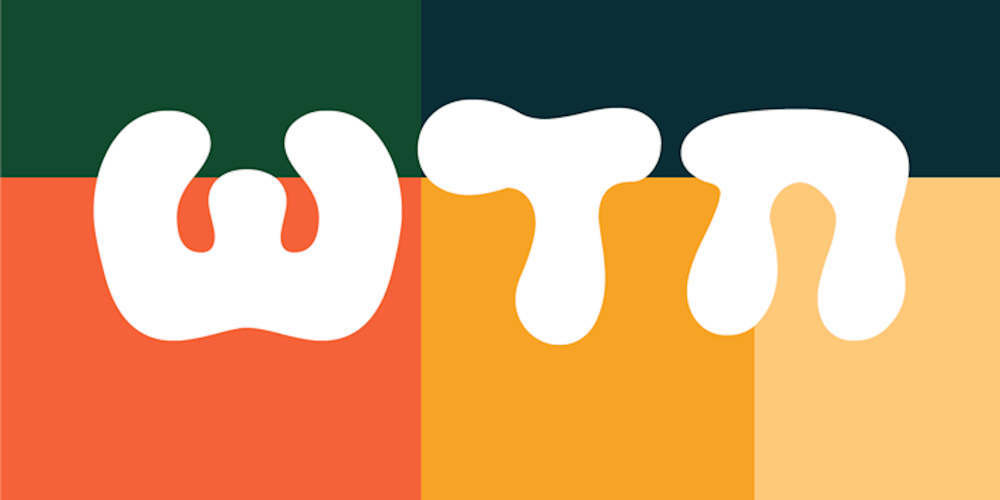
Sixtees MF
Sixtees MF font
Sixtees MF Font Family was designed by Omer Peleg and published by Masterfont. Sixtees MF contains 1 styles and family package options. Happy, childish, cute, funny – this font has it all.